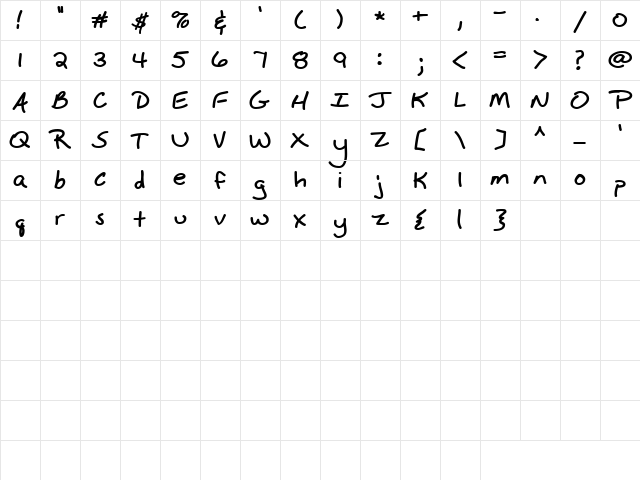
LD Fine Print 5 Regular
Design Context for LD Fine Print 5
LD Fine Print 5 is a composed and adaptable typeface that performs quietly and consistently across a wide range of design contexts.